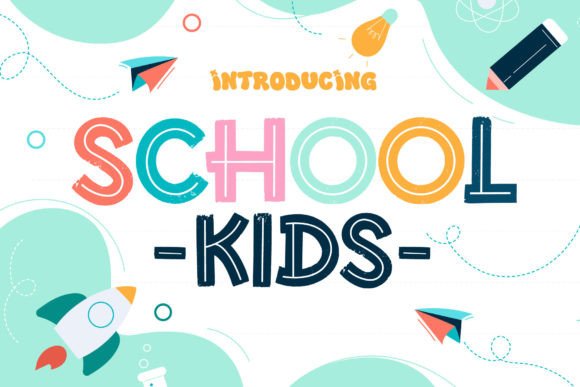
Introducing School Kids Font - the perfect addition to your font collection. Created by Fox7, this fun and cute display font is sure to catch your eye. If you're looking for the best fonts for label design, School Kids Font is the perfect choice.
This font family is highly versatile, making it perfect for a wide range of design projects. It fits seamlessly into any design idea, from children's projects to blog posts, logos, branding, ads, invitations, greeting cards, planners, photo albums, decorations, and so much more.
With School Kids Font, you can take your creative projects to the next level. It's a playful and charming font that brings out the fun in any design. The unique style of School Kids Font is perfect for any project that needs a touch of whimsy or creativity.
Whether you're designing labels for a children's product, creating a logo for a new business, or simply looking for a font that adds some personality to your designs, School Kids Font is the perfect choice.